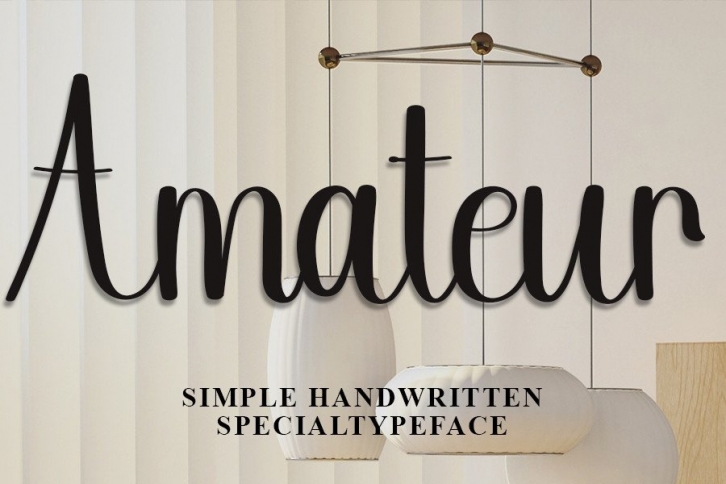
Amateur is a friendly handwritten font, carefully designed to become a true favorite. This font will make a great addition to your font library, as it will make all your creative projects come alive!